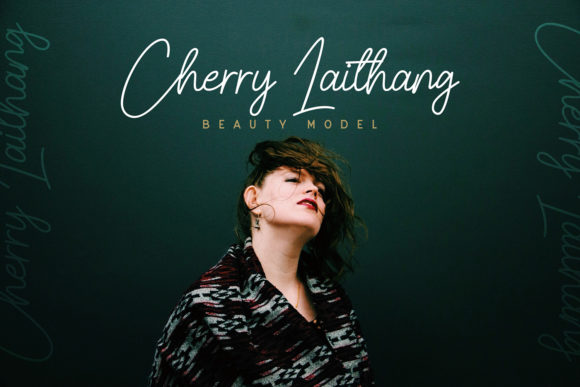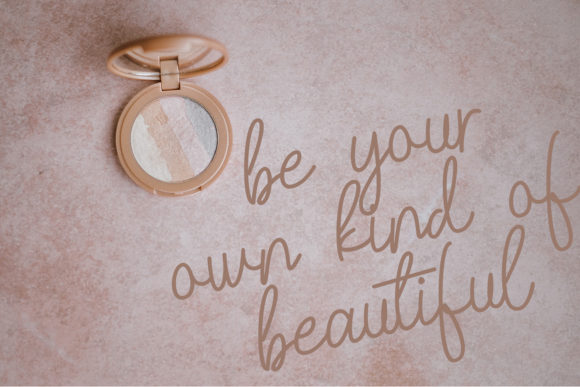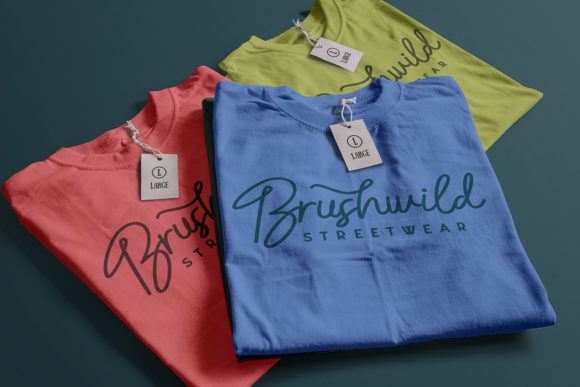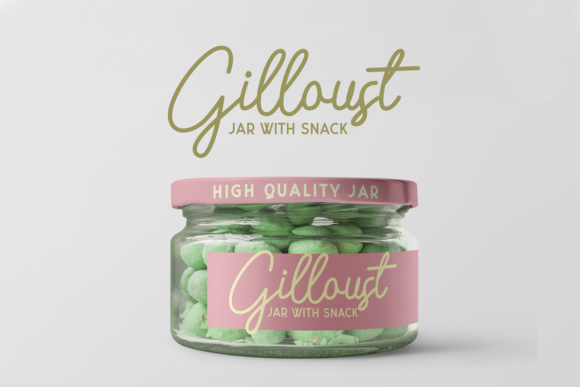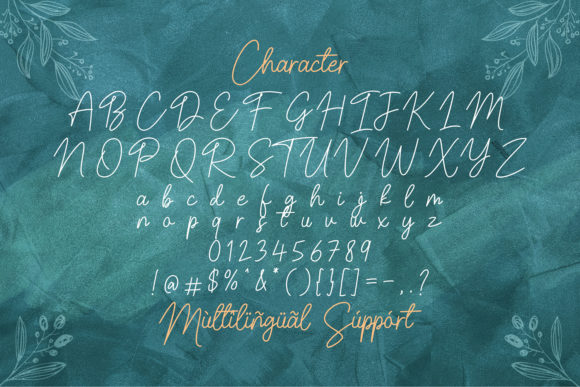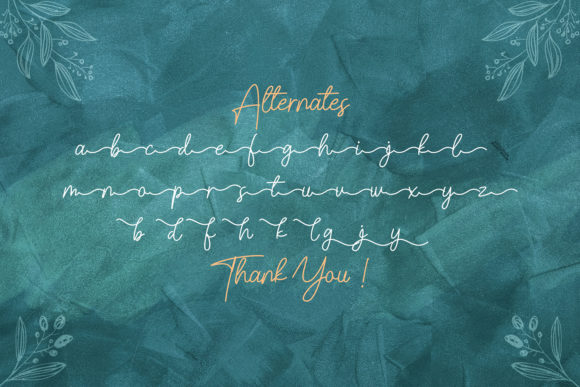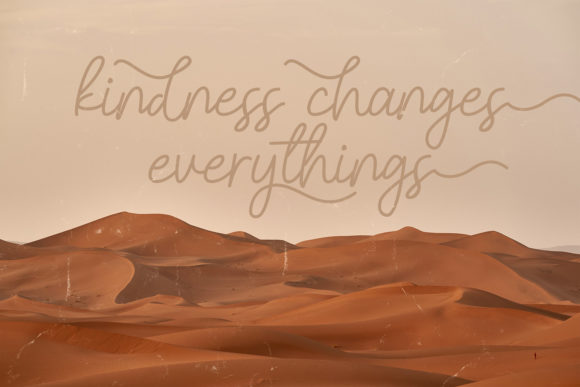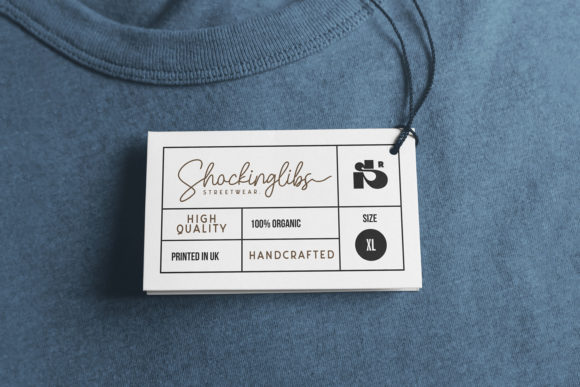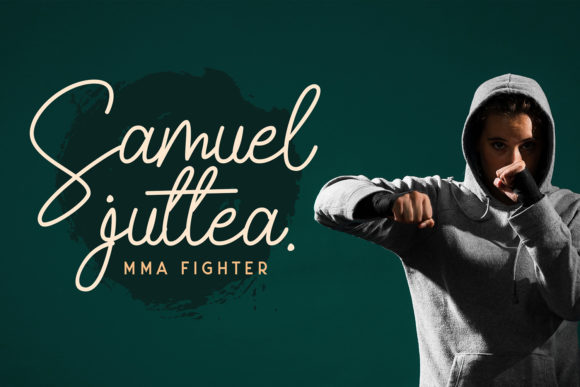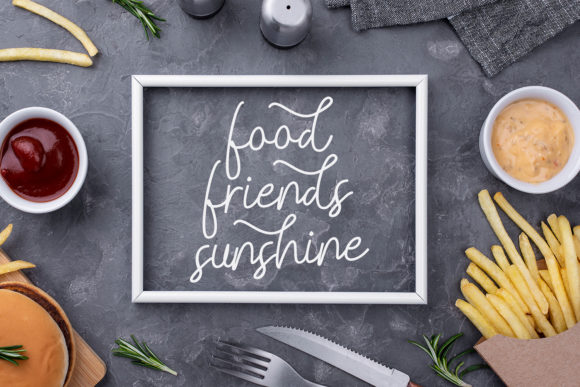
Belinday Font
About Belinday Font
Belinday feels both joyful and timeless. This beautiful handwritten font is incredibly versatile and matches a wide pool of designs. Add it to your most favorite ideas and notice how it makes them come alive!